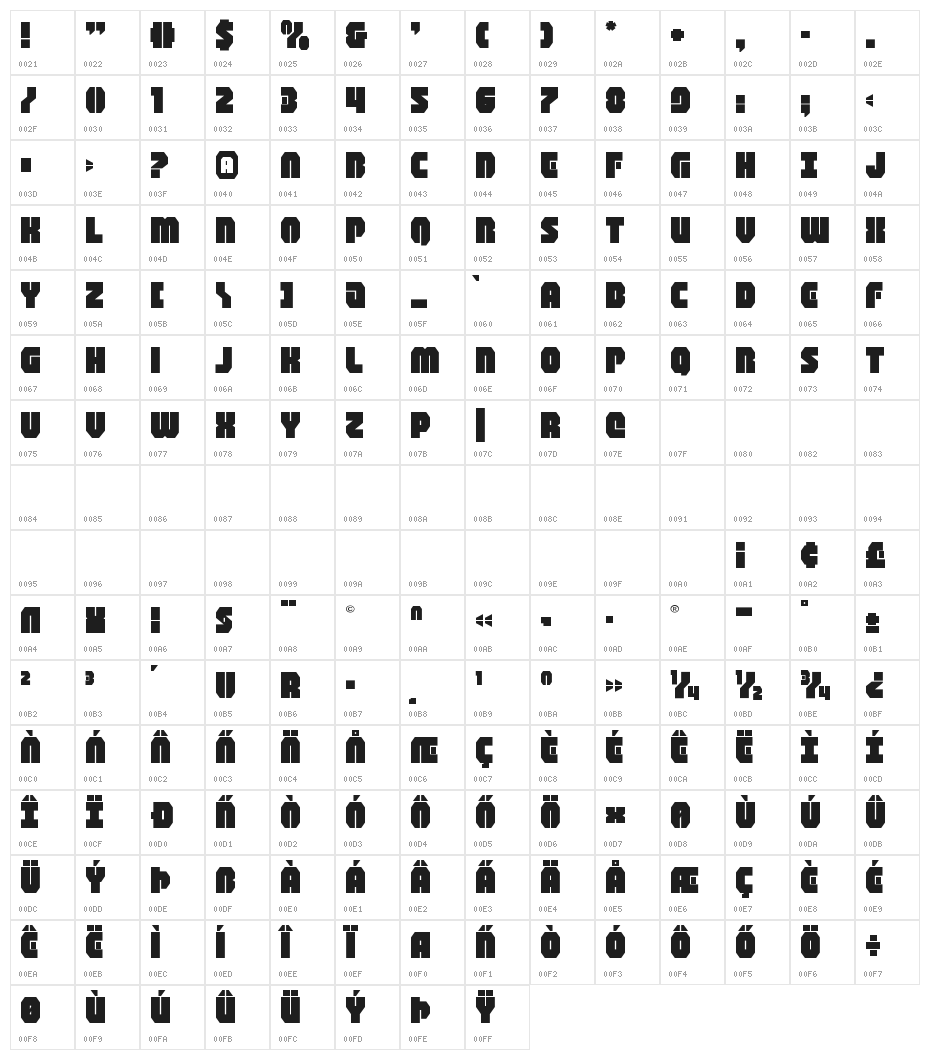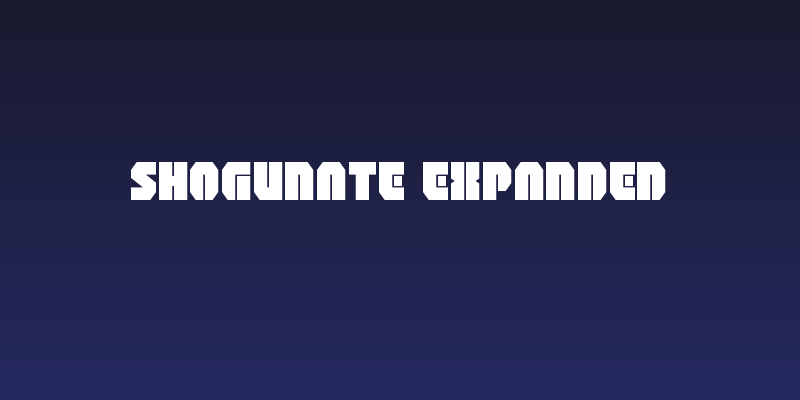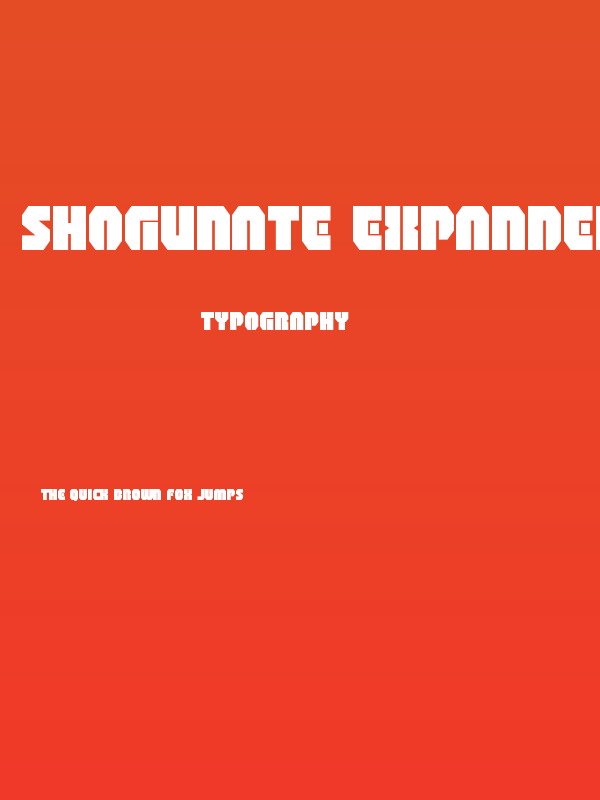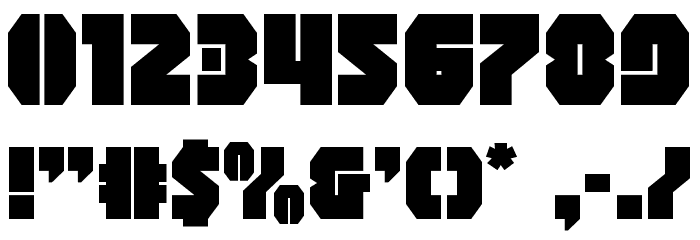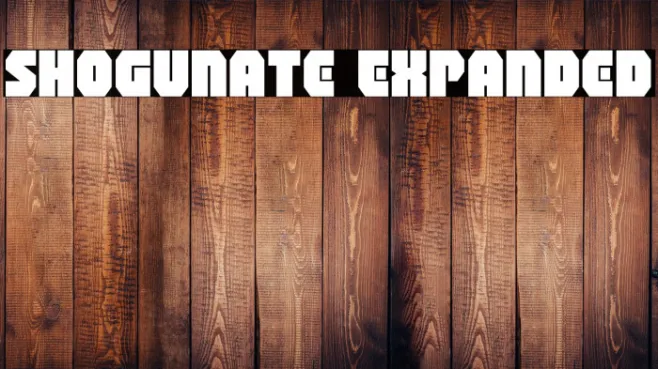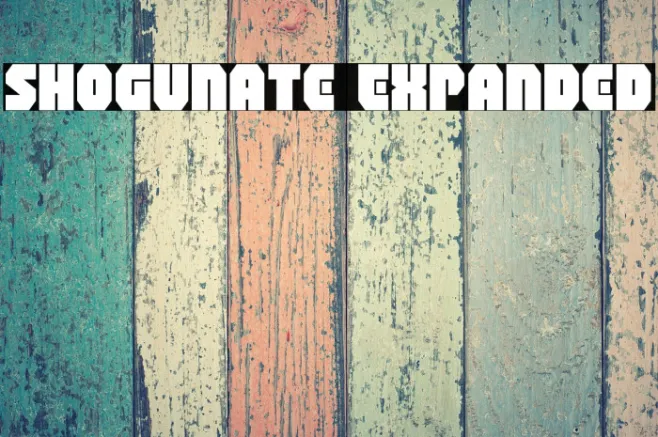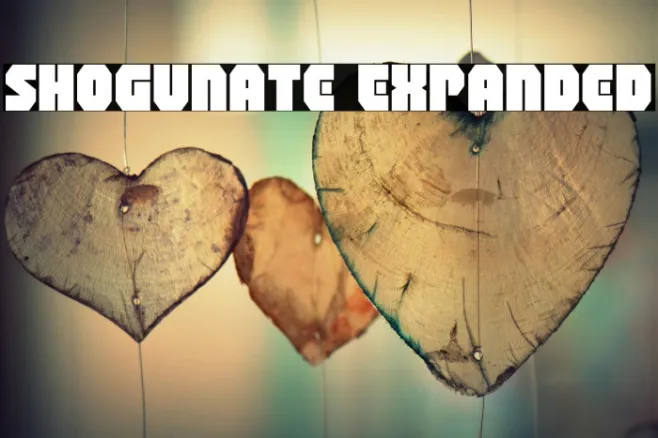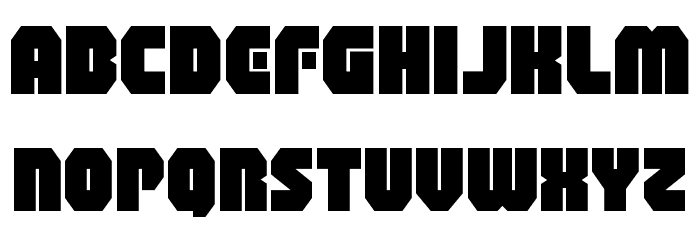
Shogunate Expanded Font
Shogunate Expanded Description
This font features a bold and striking design with a distinctly geometric and angular style. The characters are constructed with thick, block-like shapes, giving them a strong and commanding presence. The edges are sharp and the overall form is expansive, making it highly visible and impactful. The uppercase and lowercase letters maintain a consistent weight, contributing to a cohesive look. Numbers and special characters follow the same design principles, ensuring uniformity across all glyphs. This font is ideal for projects that require a bold statement and a modern, edgy aesthetic.
| Proposed Projects | Ideal for posters, headlines, branding, and any design needing a strong visual impact. |